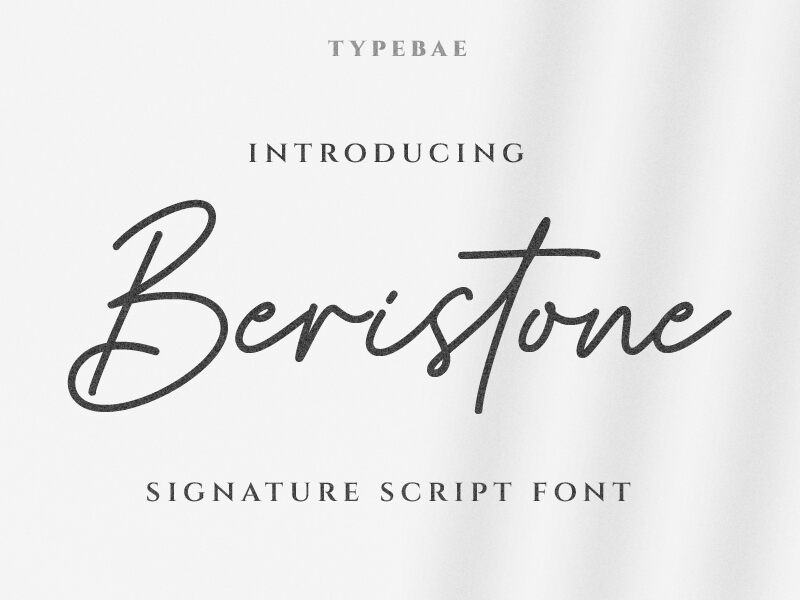
Beristone font, designed by Typebae Foundry, embodies the charm of handwritten elegance with its graceful strokes and light touch. This font exudes a casual yet sophisticated vibe, making it perfect for conveying warmth and personality in any design.
Its flowing curves and playful loops create a visually captivating experience, ideal for invitations, branding projects, or any creative endeavors that seek to evoke a sense of intimacy. The soft character shapes lend themselves beautifully to both digital and print applications, elevating everything from social media graphics to personal notes.
With Beristone’s distinct style, your projects will resonate with a delicate authenticity that invites connection and engagement. Whether used in headlines or body text, this font brings an artistic flair that stands out effortlessly while remaining approachable.